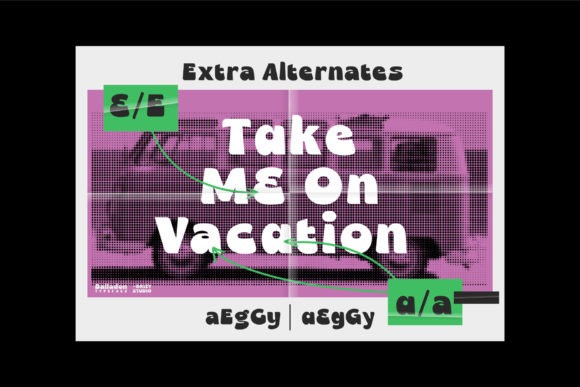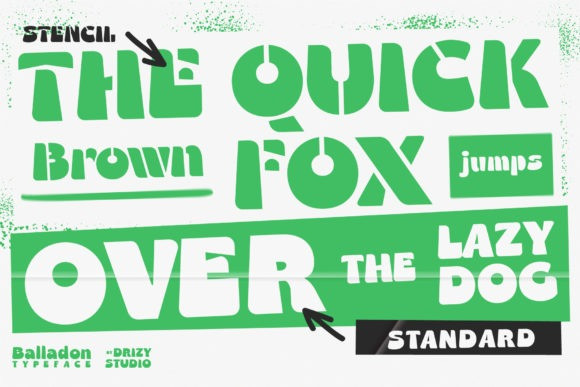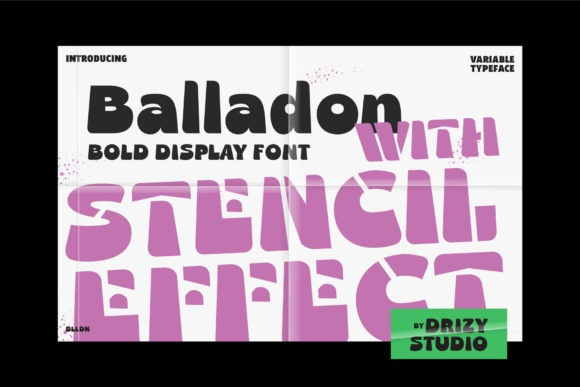
Balladon Font
Balladon Display Font is a cool, bold and retro styled display font. Whether you’re using it for crafts, digital design, presentations, or making greeting cards, this font has the potential to become your favorite go-to font, no matter the occasion!